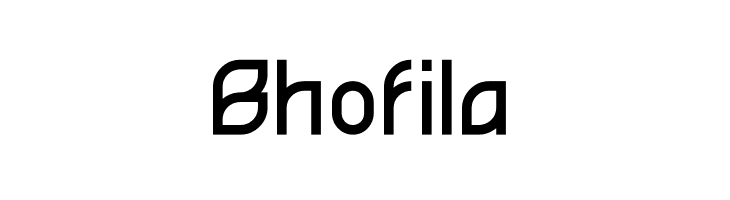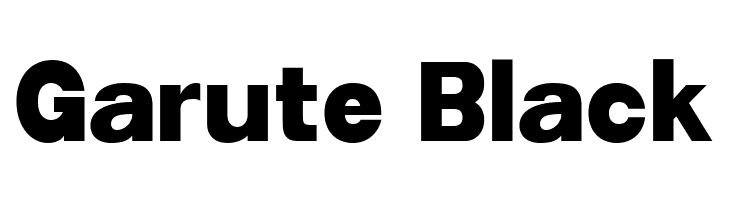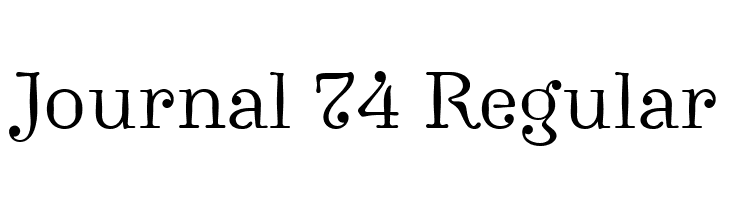
A bold, modern sans-serif font with thick, uniform strokes.
A playful, bold handwritten font with smooth curves and a casual style.
A classic serif font with semi-bold weight and moderate contrast, ideal for versatile applications.
A bold, expressive handwritten font with dynamic strokes.
A clean, modern sans-serif font with balanced proportions and consistent stroke width.
A delicate and flowing script font with elegant, continuous strokes.
An elegant script font with high contrast and decorative flourishes.
A lively and expressive script font with a handwritten feel.
A modern, geometric font with rounded and angular elements, perfect for contemporary designs.
A bold, italic serif font with elegant curves and a classic style.